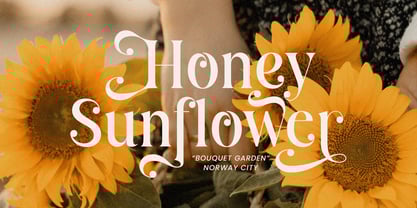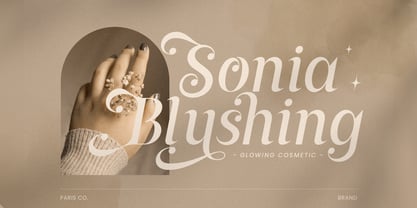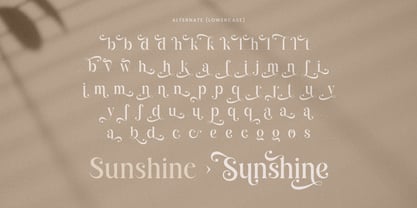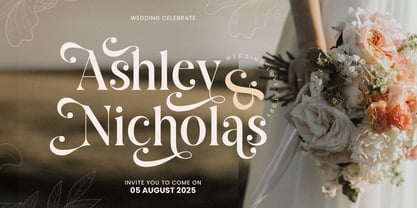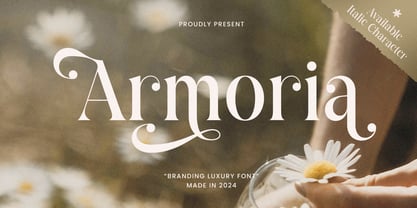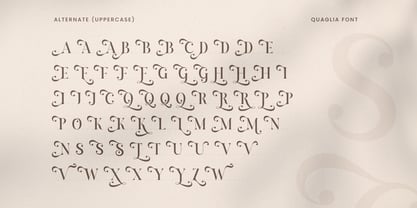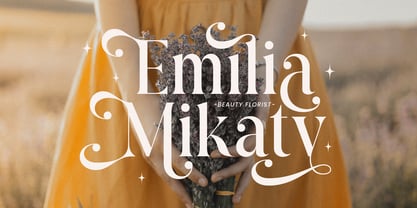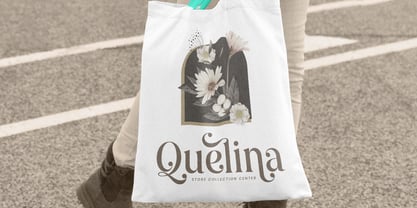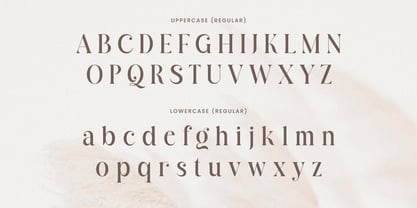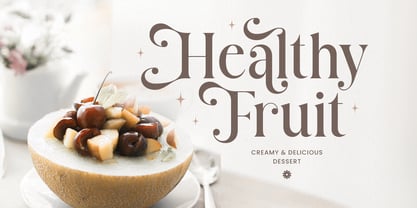
Armoria
by Sensatype Studio
The Armoria Font Family was designed by Zamroni Hamzah and published by Sensatype Studio. Armoria contains 2 styles and family package options. More about this family
Armoria - Branding Luxury Font
Armoria is a luxury font designed to elevate your branding projects with elegance and sophistication. Its refined letterforms exude a sense of exclusivity, making it the perfect choice for high-end logos, fashion branding, or any design that calls for a touch of class. Each letter is carefully crafted to convey luxury and style.
This font is ideal for businesses or creatives seeking a stylish and timeless aesthetic. Armoria’s luxurious curves and detailed serifs are designed to captivate and impress, ensuring that your brand stands out with distinction and grace. Its versatile nature allows it to be used across a range of design projects, from packaging to social media and editorial layouts.
With its timeless appeal, Armoria offers an exquisite blend of modernity and classic style. Whether you're designing for the fashion industry, beauty products, or upscale branding, this font provides the perfect balance between luxury and legibility, making your message shine.
Armoria Branding Luxury Font Features:
• Luxury Alternative Characters Ready
• Available with Regular & Italic Version
• Punctuation, Number, and Symbol
• Uppercase and Lowercase
• Multilingual Support
• Opentype Features